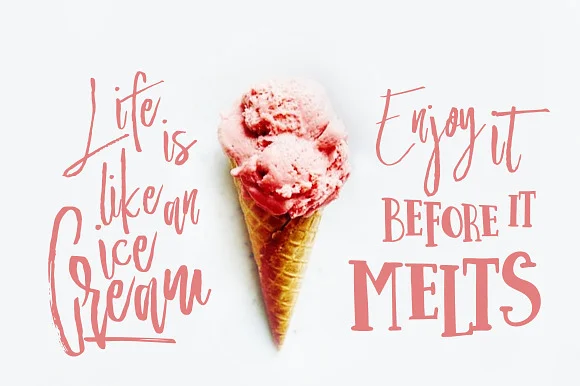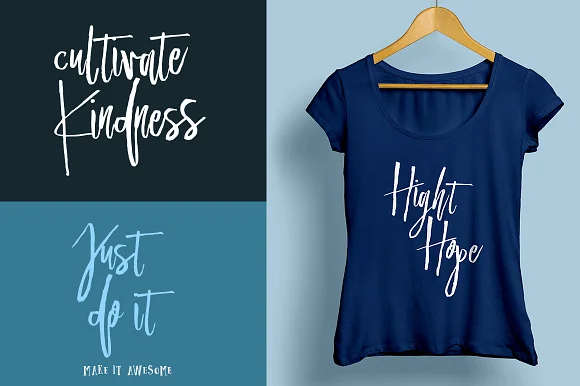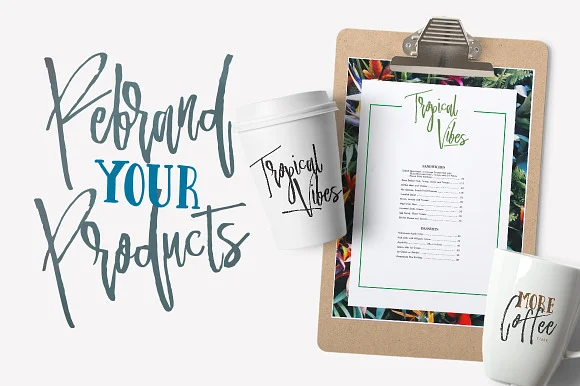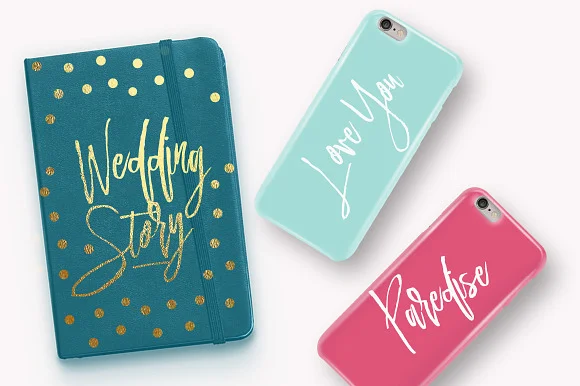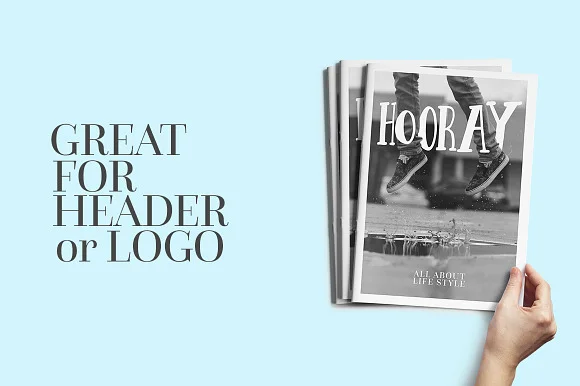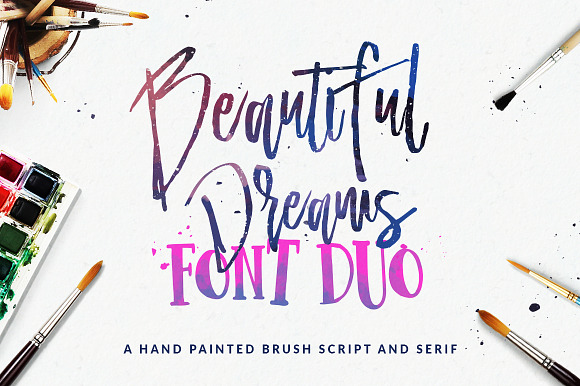
Beautiful Dreams - Font Duo
When a design brief calls for both a confident voice that adapts to diverse briefs and immediate visual impact, type choices matter — Beautiful Dreams - Duo answers that brief. The typeface brings a versatile sensibility to a broad range of creative disciplines, with refined proportions and careful stroke modulation that holds up whether the work is print-first or screen-first.
In practice, Beautiful Dreams - Duo proves particularly effective for social media graphics, web design, poster creation, packaging design, brand identity systems. Designers reaching for it find that the type decisions feel resolved rather than laboured — a useful quality when client timelines are tight.
The range of applications extends to editorial layouts, product labels, signage systems, advertising campaigns. That breadth is deliberate: the proportions and spacing were stress-tested across a wide range of mock briefs before the typeface was finalised.
Spacing and kerning pairs have been individually reviewed for the most common letter combinations in English and major European languages. The result is even type colour across continuous text, with no awkward gaps or collisions between adjacent characters.
Pairing Beautiful Dreams - Duo with a contrasting serif or a neutral grotesque gives mixed-format layouts a clear visual grammar without requiring constant size adjustments to establish hierarchy.
Freelance designers across print and digital disciplines find Beautiful Dreams - Duo a reliable choice for projects that demand both personality and restraint. The design avoids the self-conscious quirkiness that dates quickly, settling instead for considered distinctiveness that holds up over time.